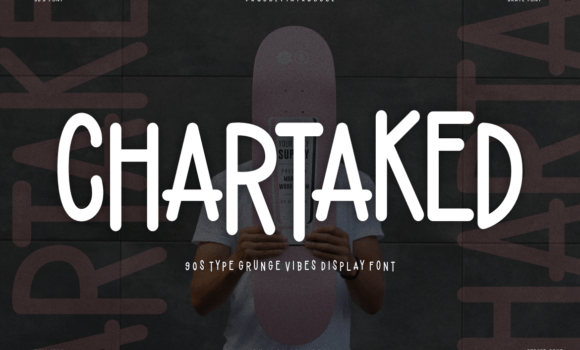
Chartaked Font – Free Download Introduction to Chartaked Font Chartaked is a sweet and friendly handwritten font. 📸 Preview Gallery 5 images 📌 Product Name Chartaked Font 👤 Author alonkelakon 📂 Category Explore ⬇️ Download Chartaked Font FREE Free Download